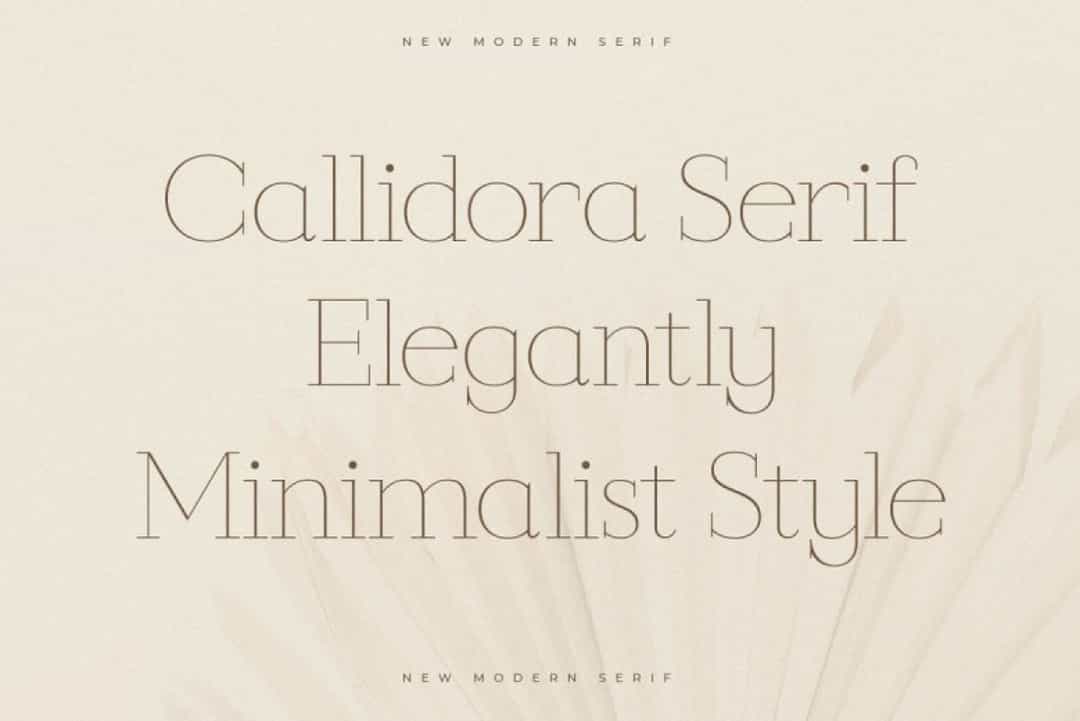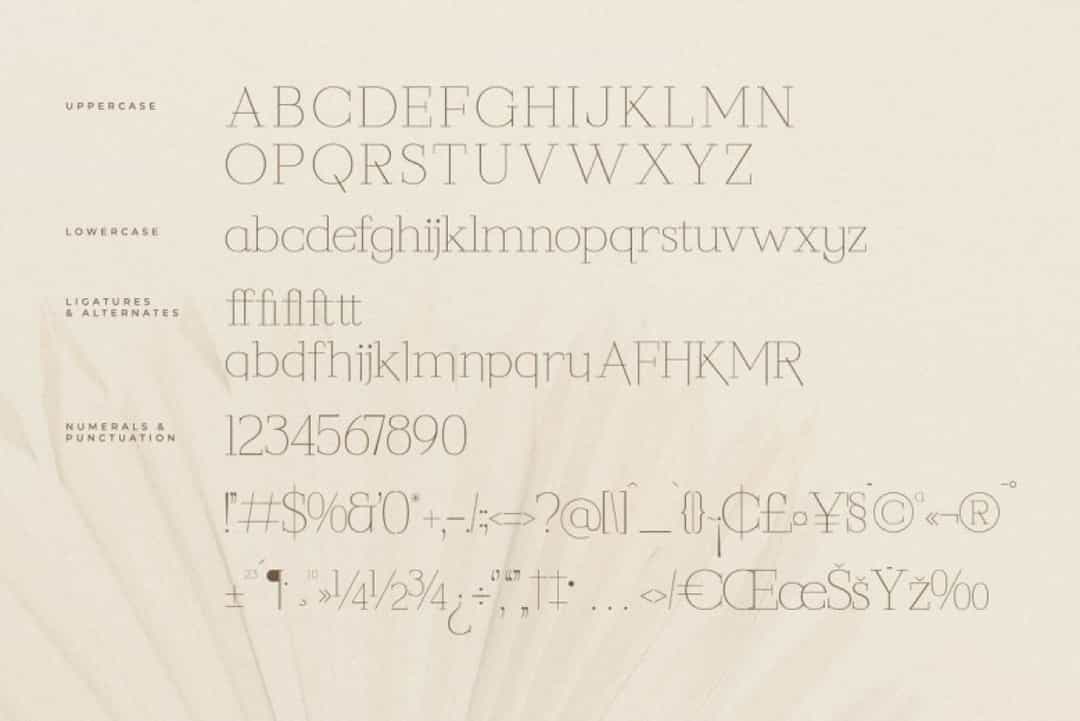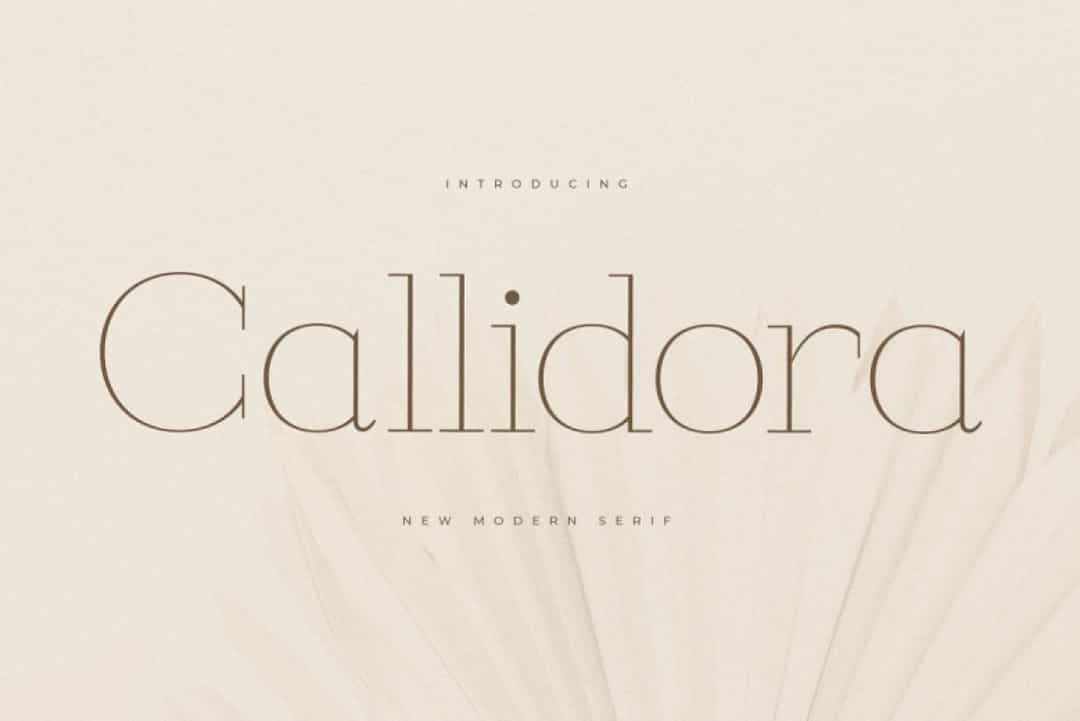
Callidora is an elegant serif typeface with its own distinct style and modern appearance. Perfect for sophisticated logos, movie or book titles, clothing brands clothing magazines lettering quotes etc…